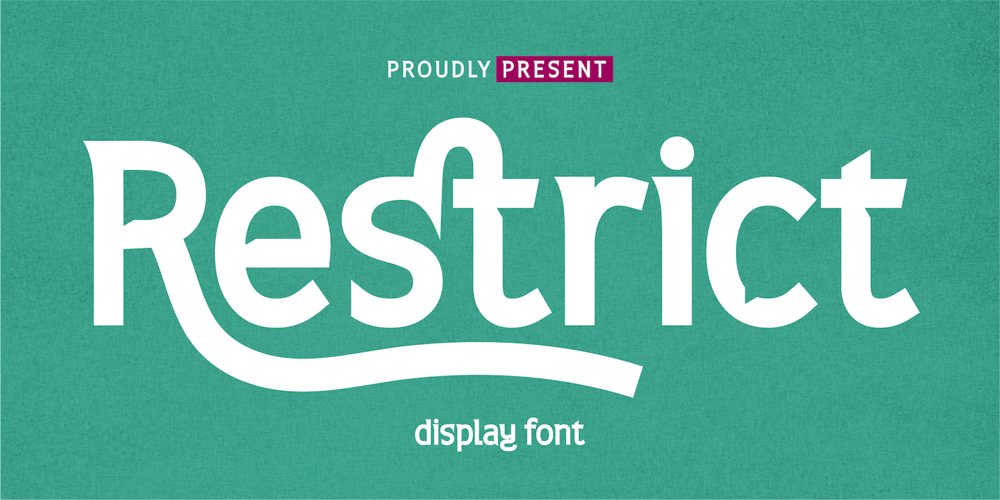
Restrict
Restrict font
Restrict Font Family was designed by Rozikan and published by Twinletter. Restrict contains 1 styles and family package options. Restrict is a san serif font that we design with a wide selection of beautiful characters and strong characteristics. Having a distinctive shape that is attractive to the eye and easy to read when you make it as a sentence is our main goal in designing this font.Not limited to that, the bold calligraphy font is designed to keep paying attention to the beauty of each letter, there are alternate options for the letters which are certainly easy for you to access, so you can automatically customize the letters you want to enhance the visual appearance of your design project.This charming font also offers the beauty of abstract typography harmony for a wide variety of design projects, including digital natural handwriting for designs, quote designs, for social media business designs, advertisements, trademarks, food and beverage promotion banners, text, posters, a signature, and all designs require handwriting or whatever design you want.What’s Included : File font Web Fonts Standard glyphs Ligature Works on PC & Mac Simple installations Accessible in Adobe Illustrator, Adobe Photoshop, Adobe InDesign, even work on Microsoft Word. PUA Encoded Characters – Fully accessible without additional design software. Fonts include multilingual support for; Afrikaans, Albanian, Croatian, Czech, Danish, Dutch, English, Estonian, Finnish, French, German, Hungarian, Italian, Norwegian, Polish, Portuguese, Slovak, Slovenian, Spanish, Swedish Thank you for your purchase!Hope you enjoy our font!